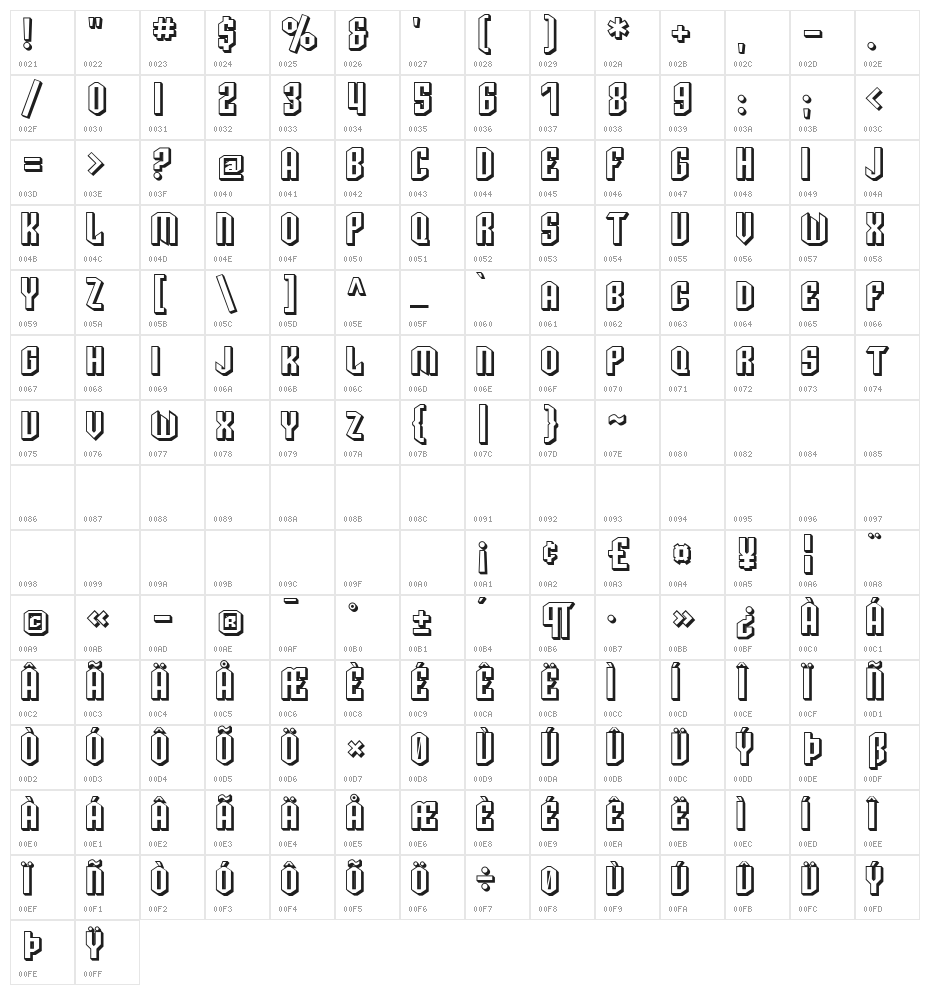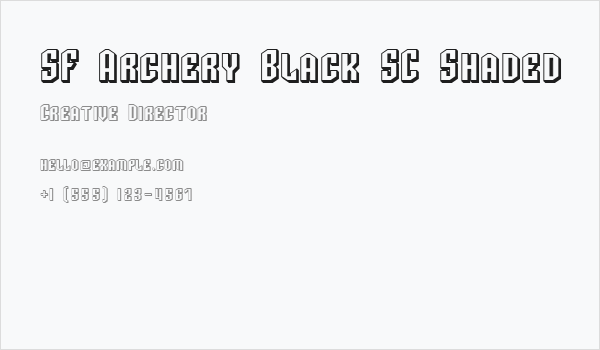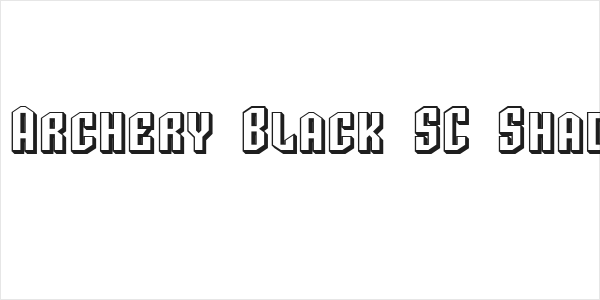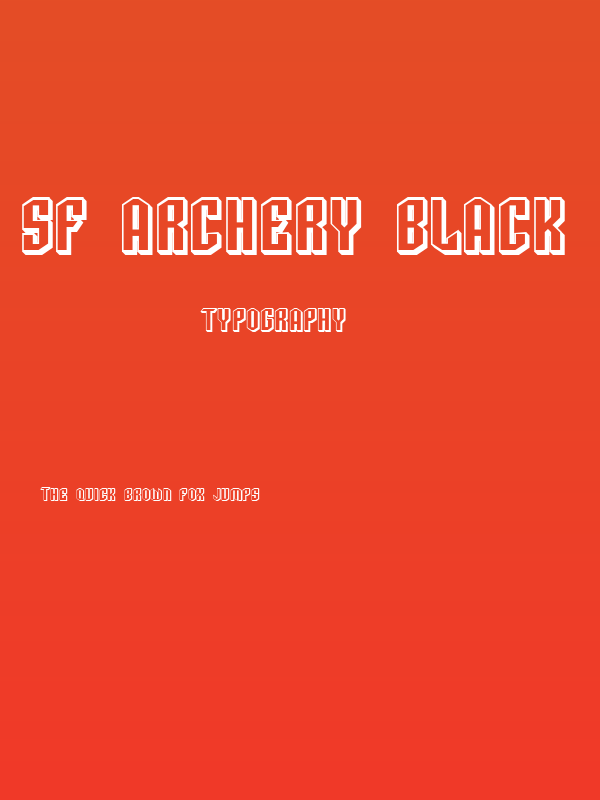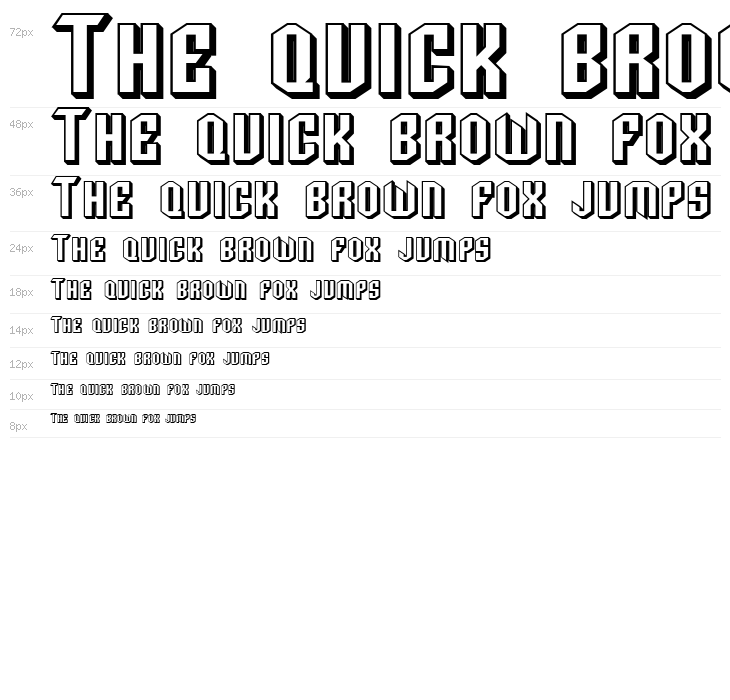
SF Archery Black SC Shaded Font
SF Archery Black SC Shaded Description
This font features a bold, geometric design with a three-dimensional shaded effect that gives it a striking, impactful appearance. The characters are all uppercase, with sharp angles and clean lines that create a sense of strength and modernity. The shading adds depth and a sense of movement, making it ideal for eye-catching headlines or titles. The numbers and special characters maintain the same bold and angular style, ensuring consistency across all text elements. This font's unique style is perfect for projects that require a strong visual presence.
| Proposed Projects | Ideal for posters, logos, video game graphics, and any project needing a bold visual impact. |